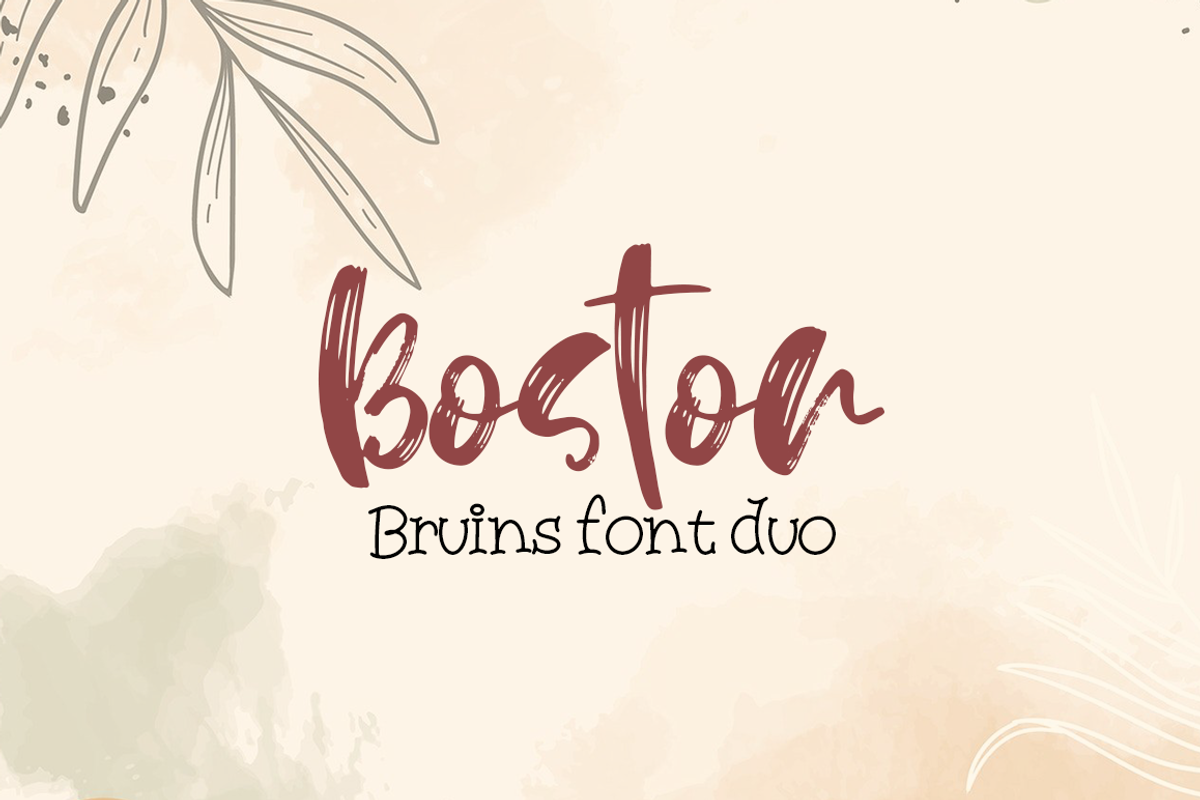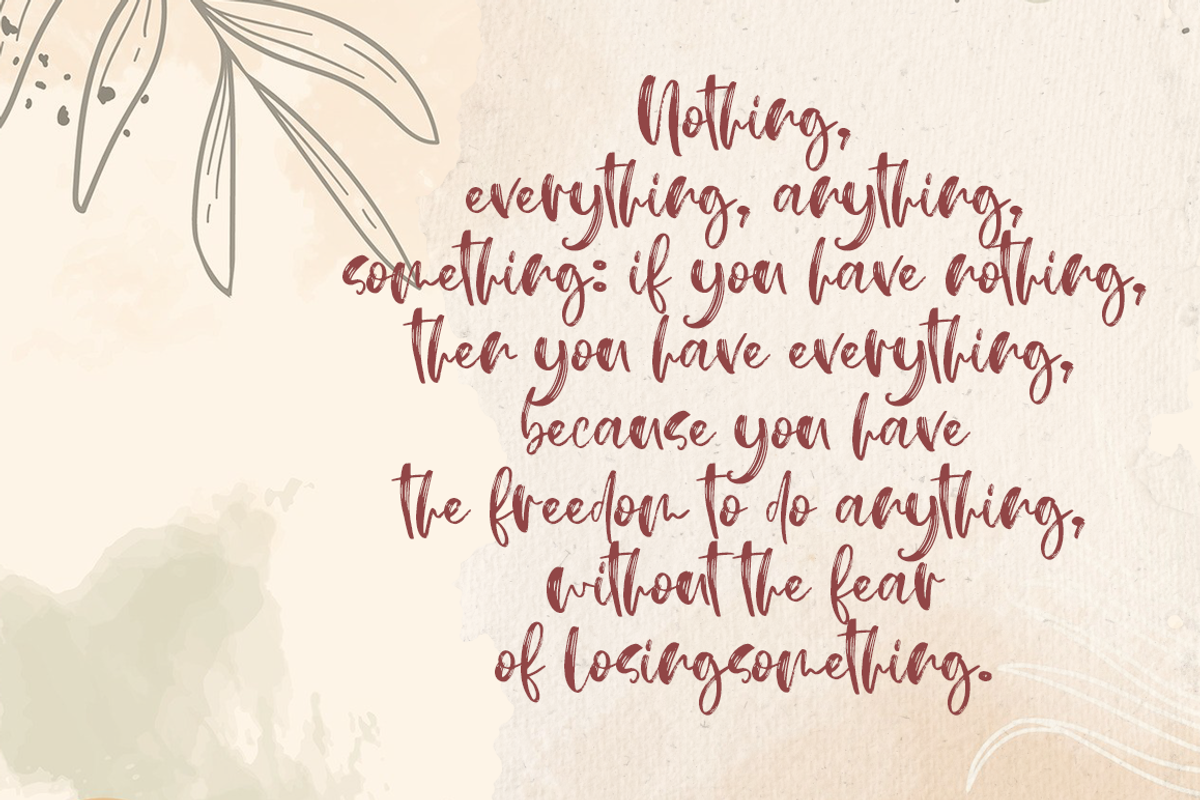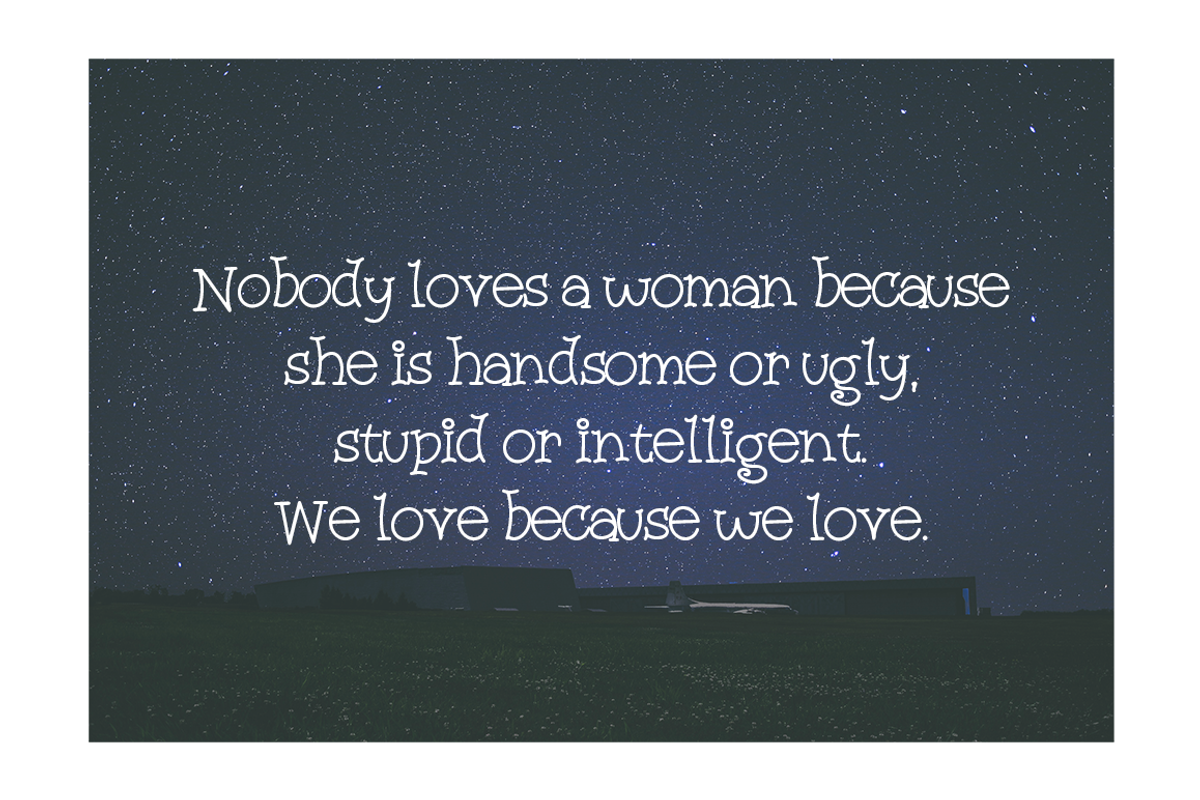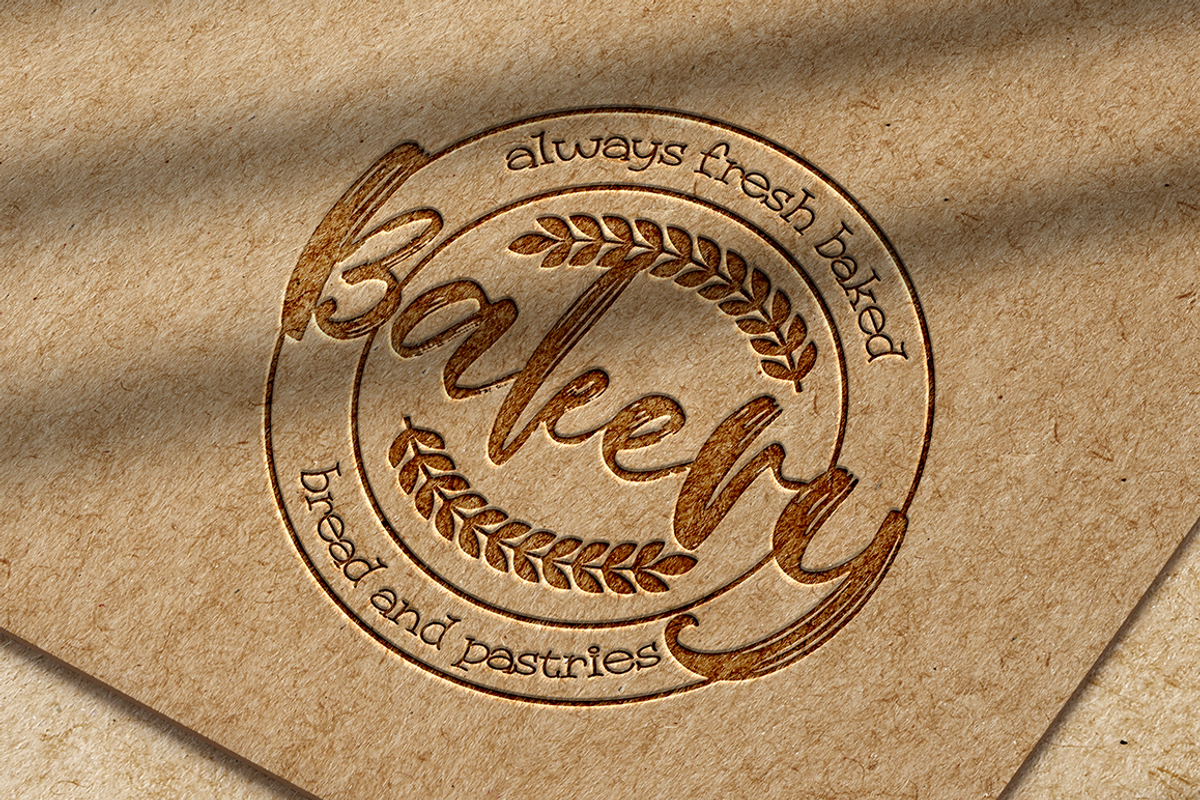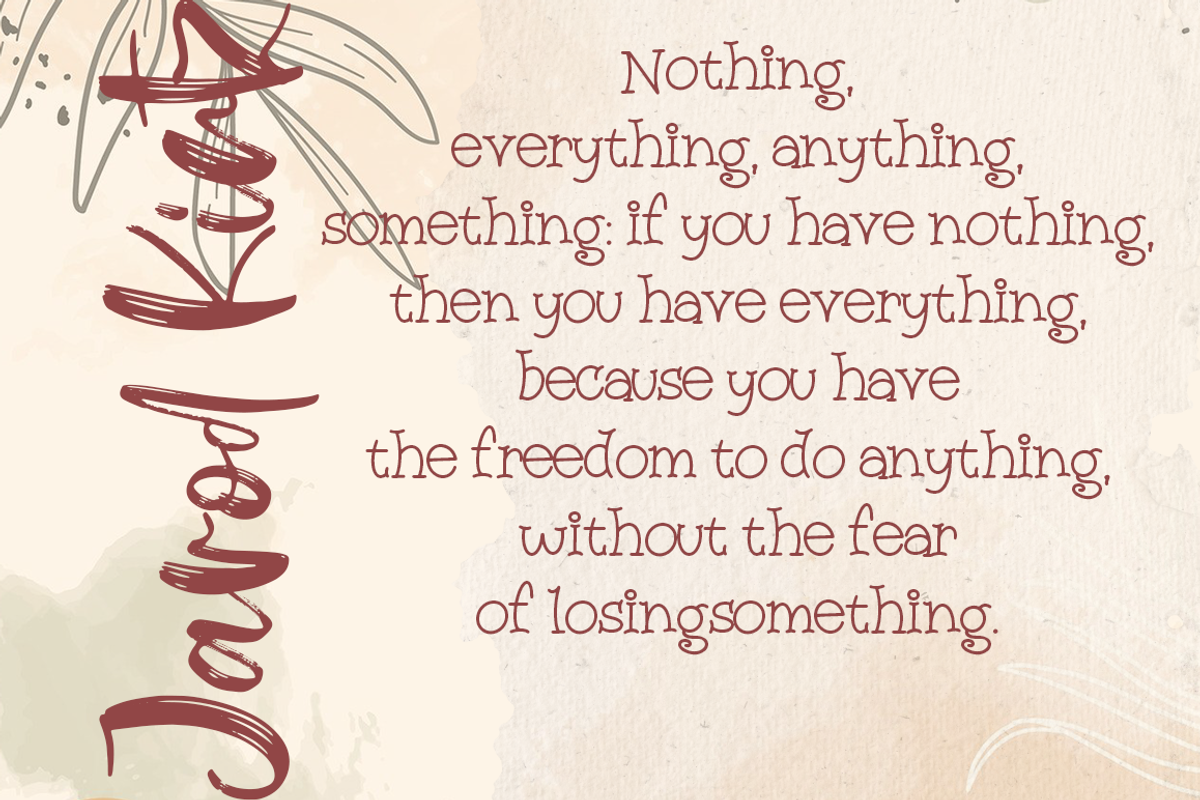
Boston Bruins Font duo
Boston Bruins - a new Stylish handmade calligraphy font.
Very suitable for greeting cards, branding materials, business cards, quotes, posters, and more!This font are perfect for wedding postcard. Or you can create perfect and unique design of your logo, blog, stationery, marketing, magazines and more :)
- Ligatures OK